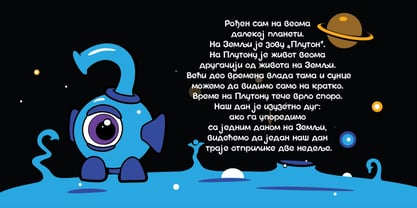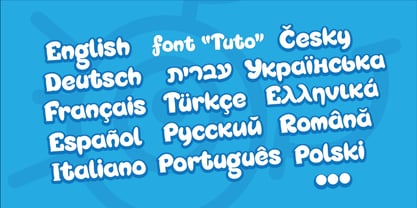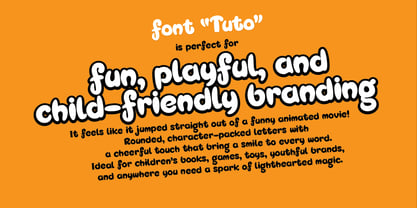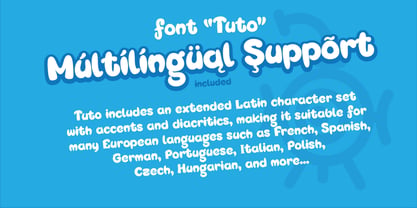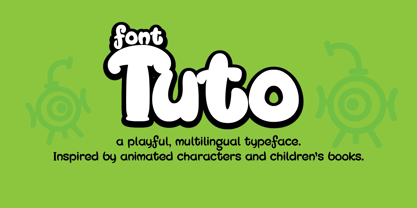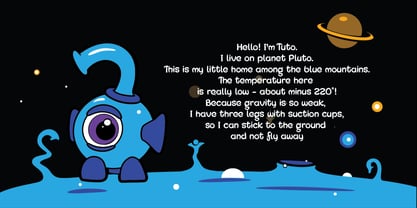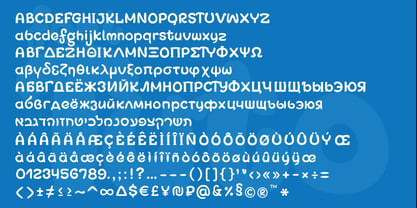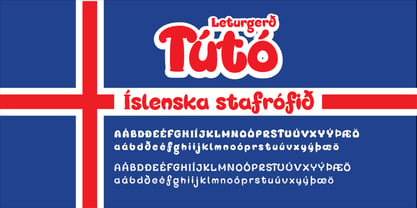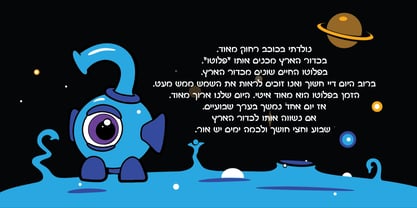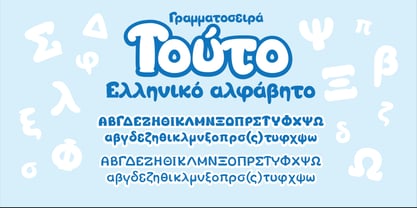
Tuto
by Golovin Fonts
The Tuto Font Family was designed by Stas Golovin and published by Golovin Fonts. Tuto contains 3 styles and family package options. More about this family
Tuto is a playful and friendly display font designed to capture attention and bring a smile to any project. Inspired by handcrafted lettering and rounded organic shapes, it combines bold personality with high readability. Its soft curves and generous proportions make it ideal for children’s books, educational materials, packaging, posters, and creative branding. The family includes Regular and Bold styles, giving designers flexibility from subtle emphasis to strong impact. Tuto supports multiple languages, covering Latin and extended character sets, making it suitable for international projects. Whether you want to create eye-catching headlines, engaging social media graphics, or a unique identity for your brand, Tuto delivers charm, warmth, and a touch of playfulness.